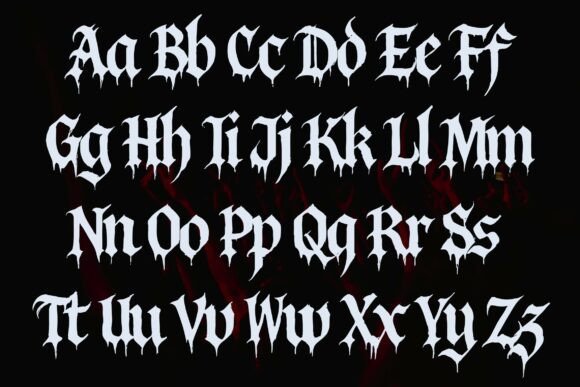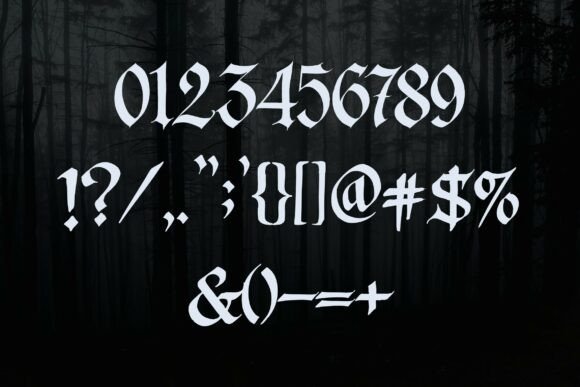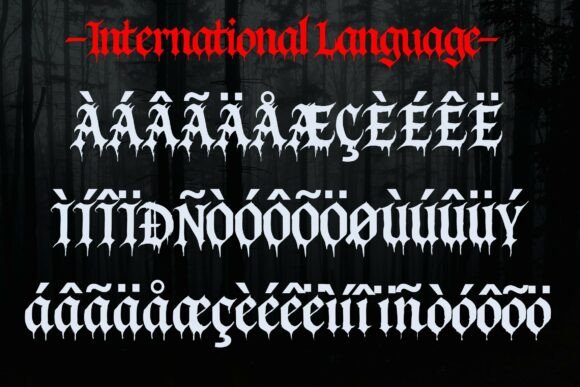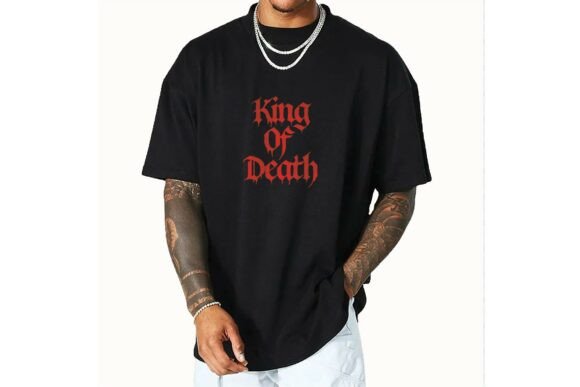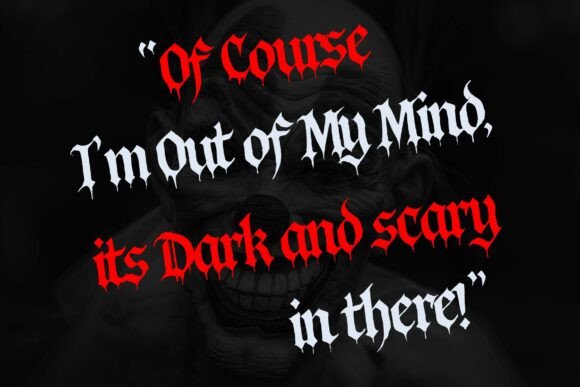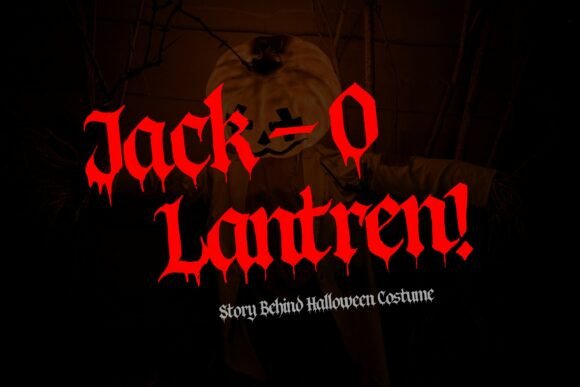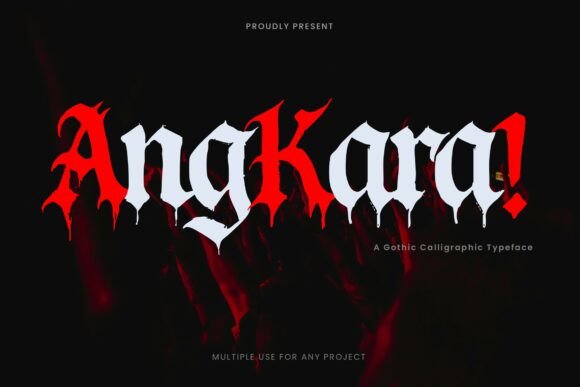
Unleash the Dark Elegance: Discover the Angkara Font
In the realm of typography, few fonts manage to convey the perfect blend of elegance and darkness. However, the Angkara Font stands out as a remarkable exception. This Gothic calligraphic blackletter typeface seamlessly merges sharp elegance with dark artistic flair, making it an ideal choice for designers seeking to make a bold statement.
The Essence of Angkara Font
Angkara Font is not just a typeface; it’s an experience. Designed with intricate strokes and dramatic swashes, it embodies the essence of luxury and sophistication. Its unique blend of Gothic and calligraphic elements gives it a distinctive look that is both mesmerizing and powerful. Whether you’re working on luxury branding, metal band logos, dark fantasy posters, tattoos, or high-fashion editorials, Angkara Font is the perfect tool to elevate your design to the next level.
Crafting Bold Visuals
One of the standout features of Angkara Font is its ability to create bold visuals. The sharp, elegant lines and dark, artistic flair make it perfect for projects that demand attention. Designers can use Angkara to create striking logos, posters, and editorials that capture the essence of their brand or theme. The font’s versatility ensures that it can be adapted to various design contexts, from the mysterious and dark to the luxurious and sophisticated.
Ideal for Luxury Branding
Luxury branding requires a font that exudes elegance and sophistication. Angkara Font, with its intricate details and dramatic swashes, is tailor-made for luxury brands looking to make a statement. Its unique aesthetic can add a touch of exclusivity and refinement to any brand, helping it to stand out in a crowded market. Whether it’s for a high-end fashion label, a luxury car brand, or a premium beverage company, Angkara Font can help elevate the brand’s visual identity.
Perfect for Metal Band Logos and Dark Fantasy Posters
Angkara Font’s dark artistic flair also makes it an excellent choice for metal band logos and dark fantasy posters. The font’s bold, dramatic appearance can add a layer of intensity and power to any design, making it perfect for projects that require a strong visual impact. Designers can use Angkara to create striking logos, album covers, and posters that capture the essence of the metal music scene or dark fantasy genres.
Tattoos and High-Fashion Editorials
Beyond its use in branding and posters, Angkara Font can also be used in more unique applications such as tattoos and high-fashion editorials. The font’s elegant and artistic design makes it suitable for tattoos, where it can add a touch of sophistication and beauty to any design. In high-fashion editorials, Angkara can be used to create striking headlines and captions that add a layer of glamour and sophistication to the overall look.
Key Features of Angkara Font
- Gothic Calligraphic Blackletter Typeface: A unique blend of Gothic and calligraphic elements gives Angkara its distinctive look.
- Intricate Strokes and Dramatic Swashes: Adds a layer of elegance and sophistication to any design.
- Perfect for Bold Visuals: Ideal for projects that demand attention, such as luxury branding and metal band logos.
- Versatile: Can be adapted to various design contexts, from luxury and sophistication to dark and artistic.
Angkara Font is a powerful tool for designers looking to make a bold statement. Its unique blend of sharp elegance and dark artistic flair makes it perfect for a wide range of applications, from luxury branding and metal band logos to dark fantasy posters and high-fashion editorials. With its intricate strokes and dramatic swashes, Angkara Font delivers a powerful statement with every letter. Whether you’re a designer, craftsperson, or simply someone who appreciates beautiful typography, Angkara Font is sure to inspire and elevate your creative projects.